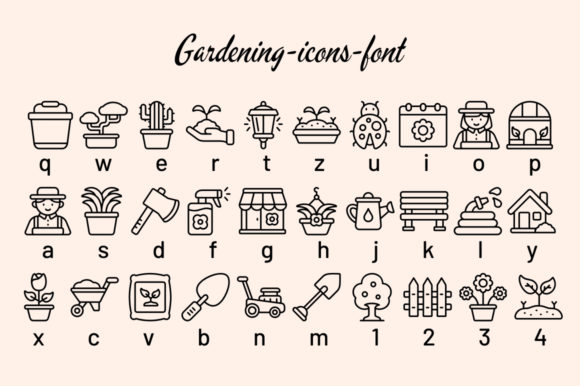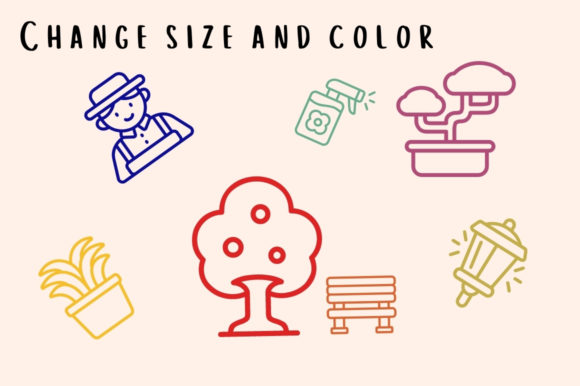
Gardening Icons Font: Elevate Your Designs with Fresh and Charming Elements
Are you a designer, crafter, or DIY enthusiast looking for a unique and adorable way to add a touch of greenery to your projects? Look no further than the Gardening Icons Font, a delightful dingbats font featuring 30 charming icons of gardening and plant-related objects. This versatile font is perfect for adding a personal touch to your websites, invitations, home decor, and creative projects, making them truly stand out.
What is Gardening Icons Font?
Gardening Icons Font is a one-of-a-kind dingbats font that offers a collection of 30 carefully crafted icons, each representing a different aspect of gardening and plants. From flowers and leaves to gardening tools and planters, this font has everything you need to bring a touch of nature to your designs. Whether you’re creating a website, invitation, or craft project, these icons are sure to add a fresh and charming element to your work.
Key Features of Gardening Icons Font
- 30 Unique Icons: Each icon is meticulously designed to represent a different gardening or plant-related object, ensuring you have a wide range of options to choose from.
- Dingbats Font Style: The font’s dingbats style allows you to easily use these icons as borders, dividers, frames, and other design elements, adding a touch of whimsy to your projects.
- Versatile Use: Perfect for various applications, including websites, invitations, home decor, and craft projects, giving you endless possibilities for creative expression.
How to Use Gardening Icons Font
Using Gardening Icons Font is incredibly easy, and its versatility makes it suitable for a wide range of projects. Here are a few ideas to get you started:
- Website Design: Add a touch of greenery to your website’s design by using these icons as borders, dividers, or frames. They can also be used as decorative elements to highlight specific sections or features.
- Invitations and Stationery: Make your invitations, greeting cards, and stationery more charming with these adorable gardening icons. They can be used as frames, borders, or even as part of the design itself.
- Home Decor: Bring the outdoors in by incorporating these icons into your home decor projects, such as wall art, stencils, or even DIY signs.
- Craft Projects: Add a personal touch to your craft projects, like scrapbooking, journaling, or card making, with these delightful icons.
Benefits of Using Gardening Icons Font
By incorporating Gardening Icons Font into your designs, you can enjoy several benefits:
- Unique and Eye-Catching Designs: Stand out from the crowd with fresh and charming design elements that are sure to capture attention.
- Time-Saving: With a wide range of icons at your disposal, you can quickly and easily add a touch of greenery to your projects without having to create everything from scratch.
- Easy to Customize: The font’s dingbats style and variety of icons make it easy to customize your designs to fit your specific needs and style.